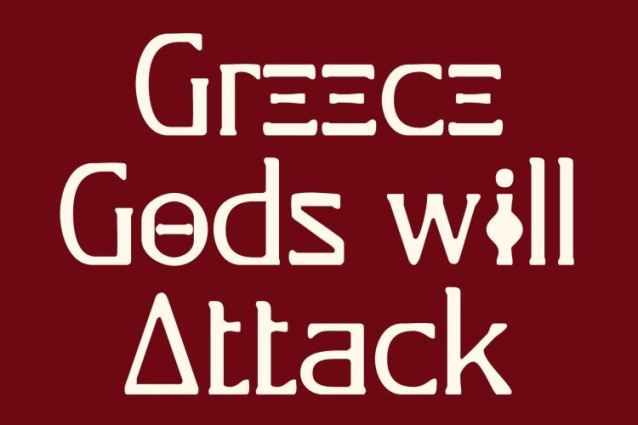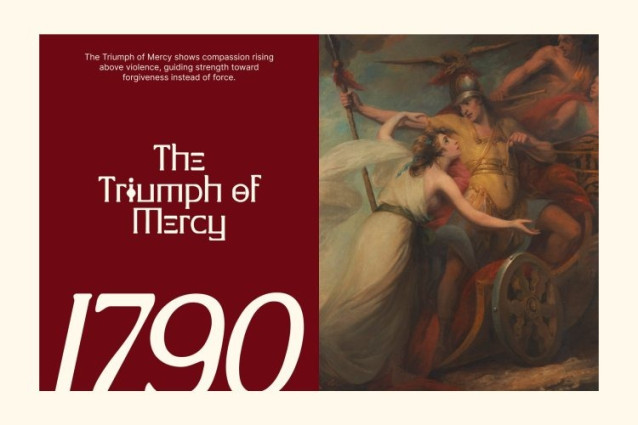
CS Spokane Drawn Font This is a classic serif display font inspired by the refined beauty of ancient Greek design. Its sculpted serifs and elegant proportions evoke the sophistication of classical architecture, now enhanced with a subtle drawn texture. The hand-crafted detailing adds warmth and personality, giving each letter a sense of artisanal charm while maintaining historical sophistication.
Ancient Influence with Modern Refinement
Drawing inspiration from Greek inscriptions and timeless typographic forms, this font merges old-world gravitas with clean, modern detailing. The drawn effect gives each character a tactile, handcrafted quality, making the typeface feel alive and unique. It’s perfect for designers looking to combine strength, elegance, and intellectual sophistication with an artistic touch.
Graceful Forms for Lasting Impact
With precise serifs, balanced proportions, and lightly irregular drawn strokes, this font delivers clarity and refined beauty in every letter. The organic, textured edges add depth and personality, creating text that feels majestic and approachable at the same time ideal for sophisticated titles, branding, or editorial layouts.
Perfect for Luxury and Editorial Design
Whether used for high-end branding, luxury editorial spreads, or eye-catching posters, this font elevates any design. Its combination of historical inspiration, modern execution, and handcrafted texture makes it a versatile choice for projects that require timeless beauty with an artistic, human touch.